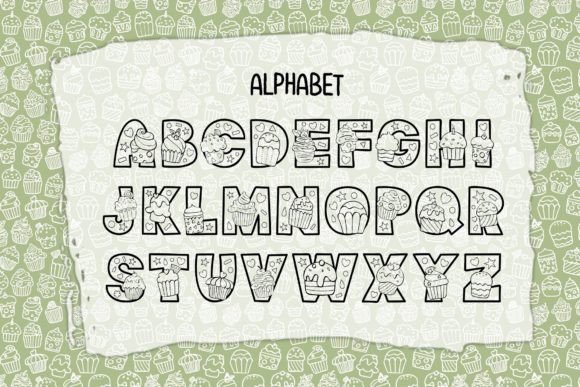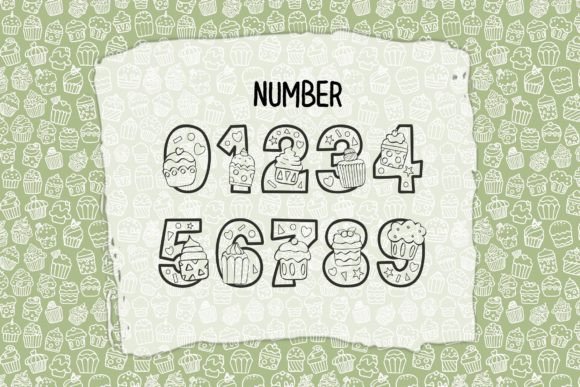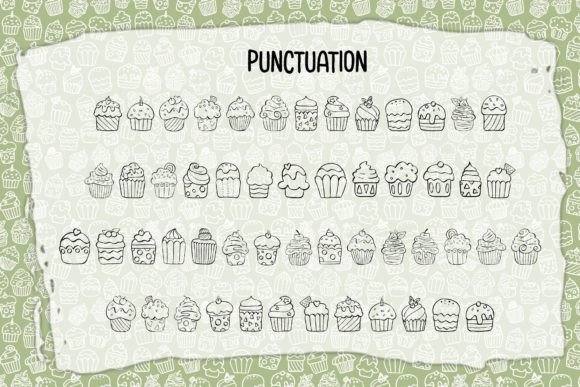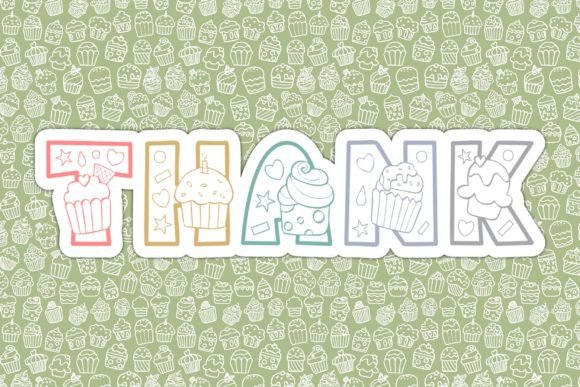
Introduction to Little Cupcake Font Font
Fonts play a crucial role in design, and the Little Cupcake Font font is a typeface that brings both character and versatility to any project. Whether you’re working on a branding project, a website, or a print design, the Little Cupcake Font font offers a unique style that can elevate your work.
Little Cupcake is a Decorative font.
This font is the perfect fit for coloring, kid books, social media, crafty DIY projects, and much more .
Key Features of Little Cupcake Font Font
Why Choose Little Cupcake Font Font?
The Little Cupcake Font font is more than just a typeface – it’s a design tool that helps you communicate your message with style and clarity. Its unique character set and versatile design make it suitable for a wide range of applications, from elegant invitations to bold headlines.
With its carefully crafted letterforms and balanced proportions, the Little Cupcake Font font ensures readability and visual appeal across all mediums.
What makes Little Cupcake Font font special?
The Little Cupcake Font font stands out with its unique design, exceptional readability, and versatility across various design applications.